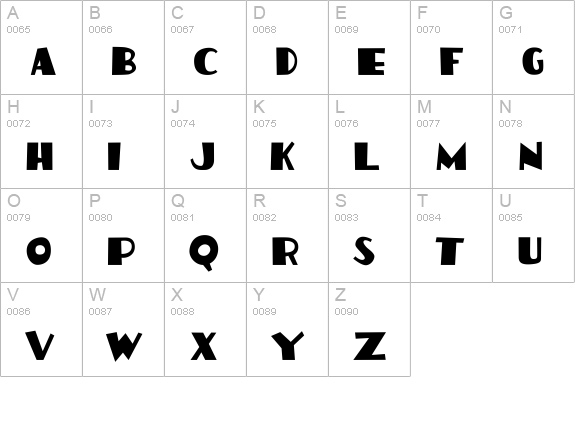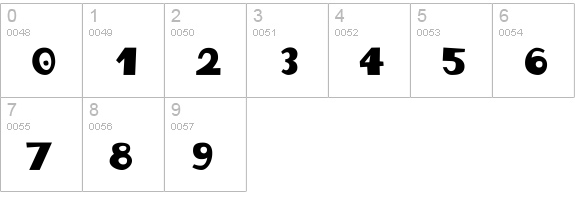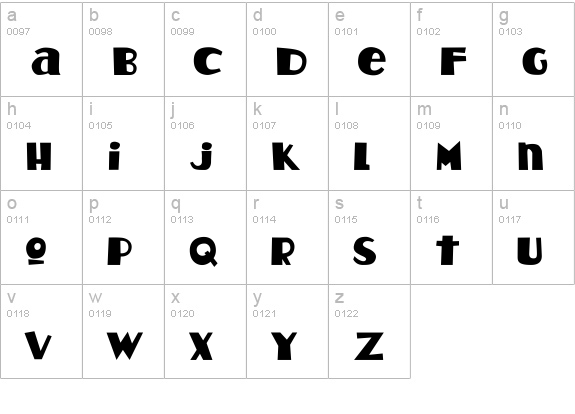
HotCoffeeFont Font Details
Introducing HotCoffeeFont, a delightful and versatile font that will add a touch of warmth to your projects. This unique typeface exudes a cozy and inviting vibe, making it perfect for a wide range of design applications. Whether you're creating a coffee shop logo, a cozy café menu, or a charming greeting card, HotCoffeeFont is sure to make your text stand out. This font features a stylish and modern design with a hint of handwritten flair, giving it a trendy yet approachable feel. The smooth curves and elegant lines of HotCoffeeFont make it a joy to read, while its bold and eye-catching presence ensures that your message will be noticed. Best of all, HotCoffeeFont is completely free to download at FontsMarket.com, making it accessible to designers of all levels. Don't miss out on the opportunity to add this charming font to your collection and bring a touch of warmth to your next project. Download HotCoffeeFont today and let your creativity shine!